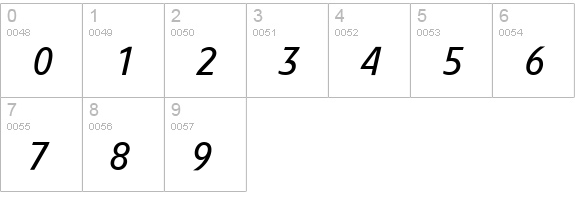
Evo kursiv Font Details
Evo kursiv font is a sleek and modern typeface that exudes elegance and sophistication. Its unique italic style adds a touch of flair to any design project, making it perfect for a wide range of applications such as branding, editorial design, and signage. What makes Evo kursiv font even more appealing is that it is available for free download at FontsMarket.com. This means you can easily access this premium quality font without any cost, making it a valuable addition to your font collection. With its clean lines and stylish curves, Evo kursiv font is sure to elevate your designs and make a lasting impression. Download it today and take your projects to the next level!